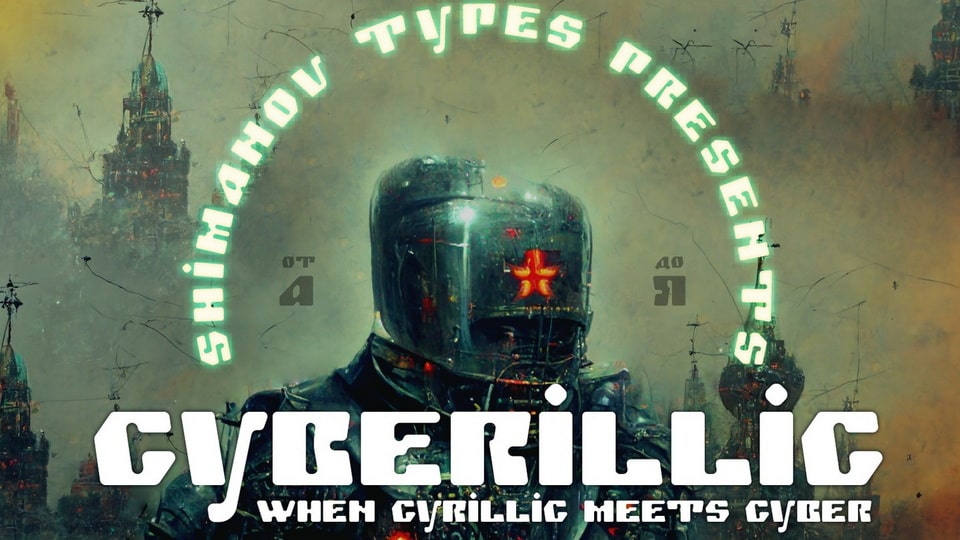
Download ST-Cyberillic font, a display typeface is made for graphic identity of design exhibition “Cyrillic – culture code”. ST-Cyberillic combines the styles of the Old Slavonic “Ustav” and pixel computer fonts.